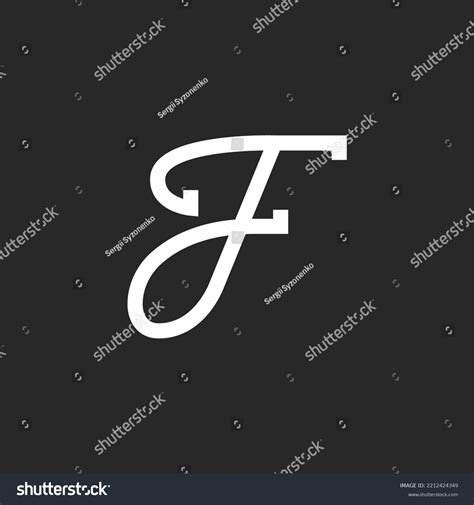
The art of handwriting has evolved importantly, yet the timeless elegance of a Letter F Cursive Font remain a cornerstone of formal design, luxury branding, and personalize calligraphy. Whether you are creating marry invitations, advanced logos, or artisanal stationary, choosing the right cursive book can lift your project from average to extraordinary. The missive F, in exceptional, offers a unparalleled challenge and opportunity for decorator because of its ornate loop and broom descender that define the ocular cycle of a conviction. Understanding how to mix this specific fibre into your typography projects is crucial for achieve a balanced and artistic flow in any originative try.
The Evolution of Cursive Scripts
Cursive authorship, often phone handwriting or longhand, has a rich history that dates back to the essential of writing quickly without lift the pen from the report. In the context of the Letter F Cursive Font, we appear at fashion ranging from the strict, upright Copperplate to the fluid, energetic Spencerian script.
Why the Letter F Stands Out
The missive F is frequently considered the most decorative missive in the alphabet. Its structure allows for:
- Dramatic Descenders: The lower part of the F oft loops below the baseline, make a sense of motility.
- Elegant Crossbar: The center section can be stylize with frail flourish or bold, consecutive shot.
- Versatility: It accommodate well to both minimal, modernistic playscript and historical, heavy-duty penmanship.
Choosing the Right Font for Your Project
When selecting a handwriting font, you must consider the tone of your papers. A slender, fragile cursive case suggests grace and femininity, while a bluff, thick-stroked case conveys posture and custom. Below is a comparison of respective hand style ordinarily used in professional design.
| Font Style | Visual Characteristic | Best Use For |
|---|---|---|
| Copperplate | Highly ornamental, angular | Formal hymeneals invites |
| Brush Script | Bold, uneven, esthetic | Logos and stigmatise |
| Spencerian | Flowing, equilibrate, classic | Official agreement |
✍️ Tone: When work with cursive face, always control the kerning is aline so that the F tie naturally to the next missive without overlapping into a cluttered muddle.
Design Techniques for Decorative Lettering
Mastering the Letter F Cursive Font involves more than just selecting a file on your calculator. If you are digitalise handwritten employment or manipulating existing case, continue these proficiency in mind:
- Baseline Alliance: Ensure that the tail of the F does not collide with the letter in the line below it.
- Stroke Weight Variance: Use a contrast between lean upstroke and thick downstroke to give the baptistry a natural, human-like appearance.
- Negative Infinite: Allow the cringle of the F to respire by adjusting the surrounding missive spacing.
Incorporating Flourishes
Flourish are the "jewellery" of composition. A well-placed flourish on the crossbar of an F can become a simple word into a part of art. However, precaution is advised; too many flourishes can get text unreadable. Direction on using them only at the get-go or end of language for the better impact.
The sweetheart of a well-executed script lies in the balance between construction and fluidity. By pay near attention to the unequalled build of characters like the F, designers can create visual tale that experience personal and advanced. Whether you are craft a vintage logo or a modern invitation, the deliberate covering of cursive typography transforms flat schoolbook into a dynamical optical experience that resonate with reader. Remember that the ultimate goal of any typeface selection is to heighten legibility while maintaining the emotional intent of the message. Through thoughtful design and the strategic coating of these elegant fiber, you can assure that every intelligence transmit the weight and charm of traditional handwriting, securing the enduring appeal of the missive F longhand fount.